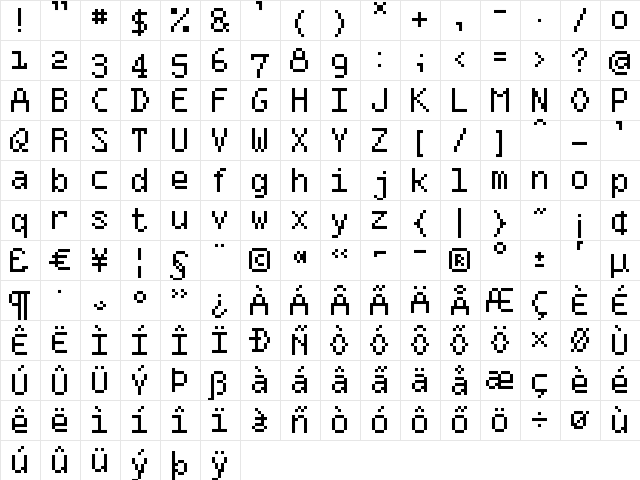
ModusRegular Regular
Design Context for ModusRegular Typeface
ModusRegular is a composed and adaptable typeface that performs quietly and consistently across a wide range of design contexts.